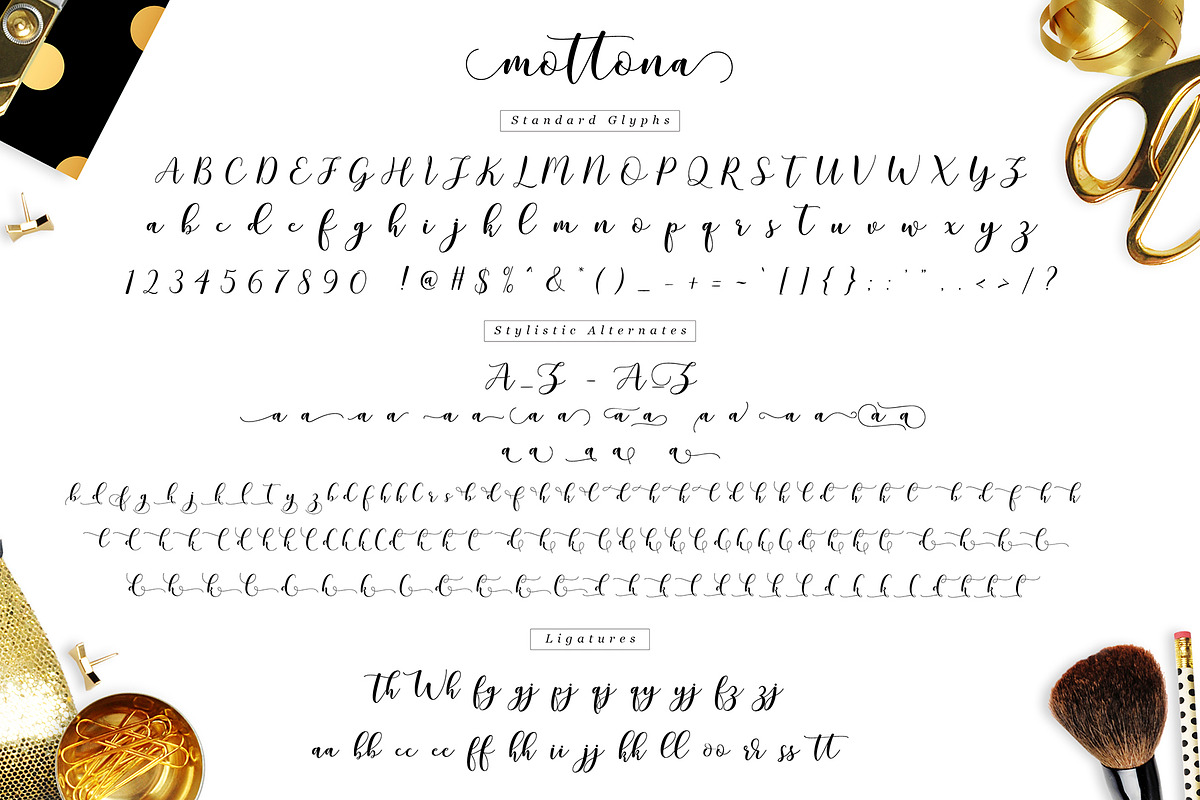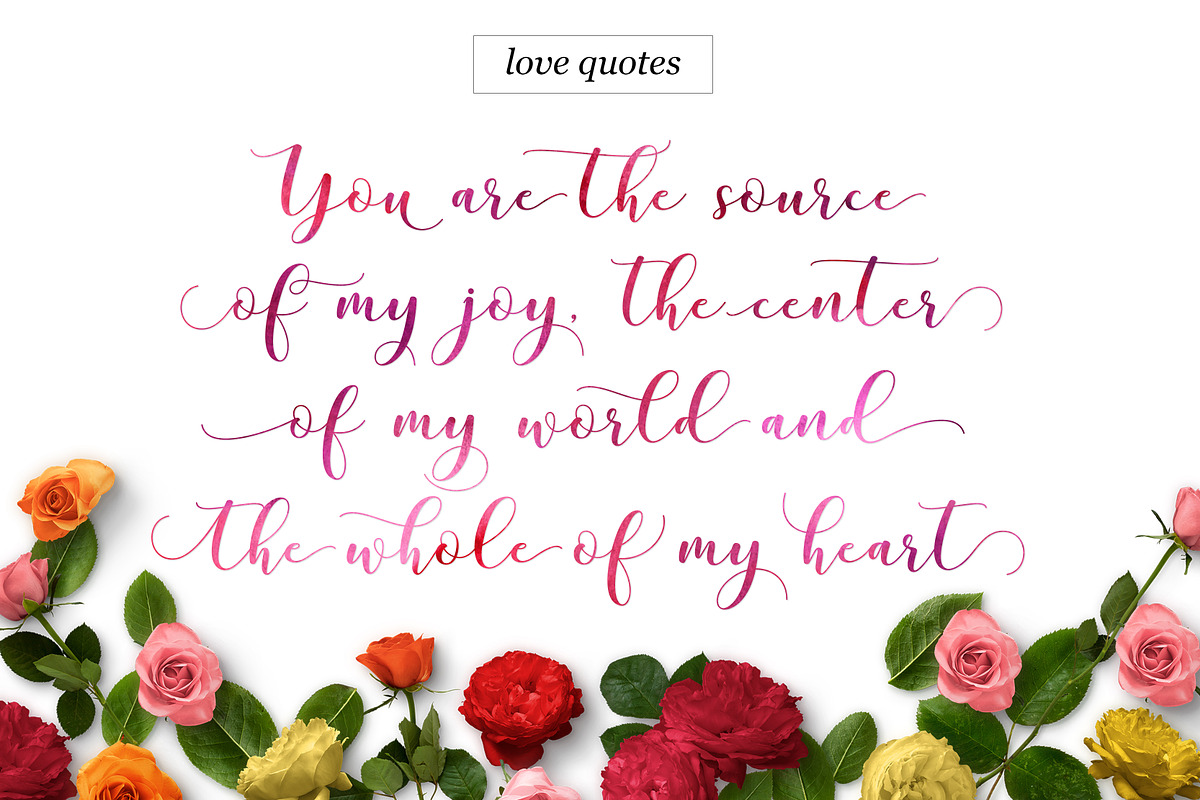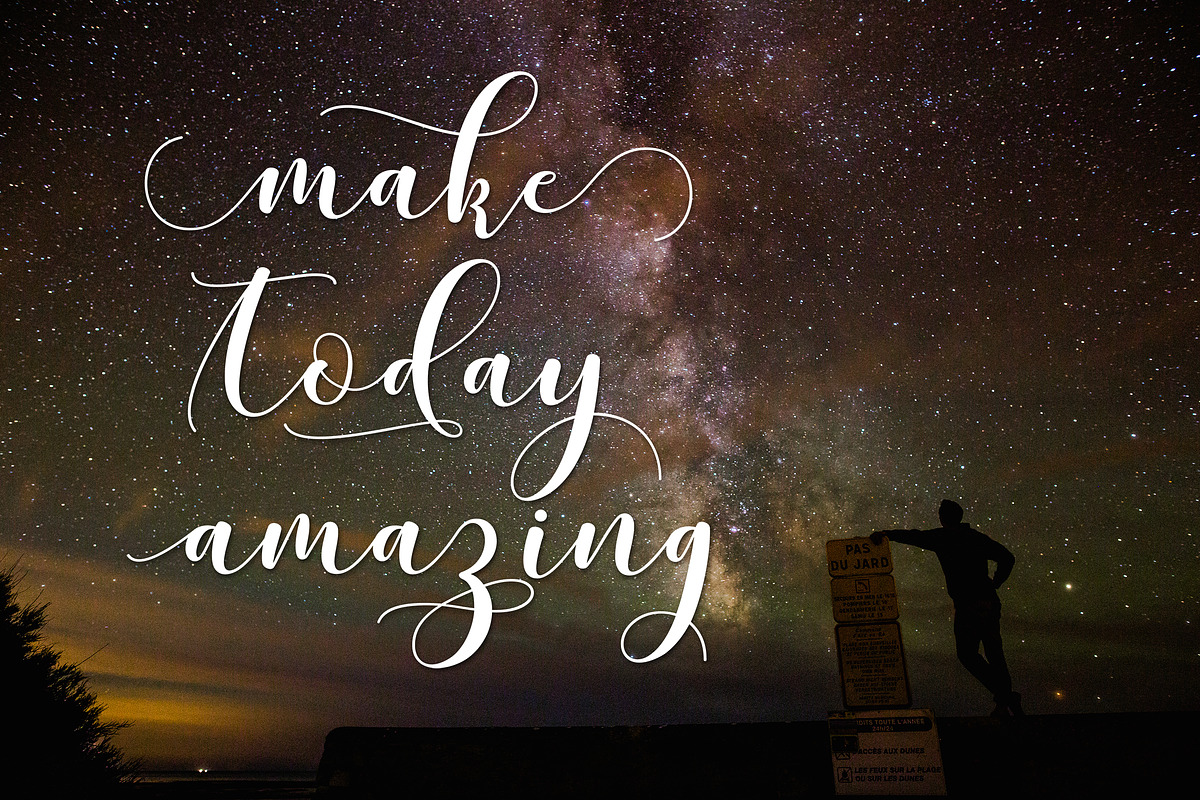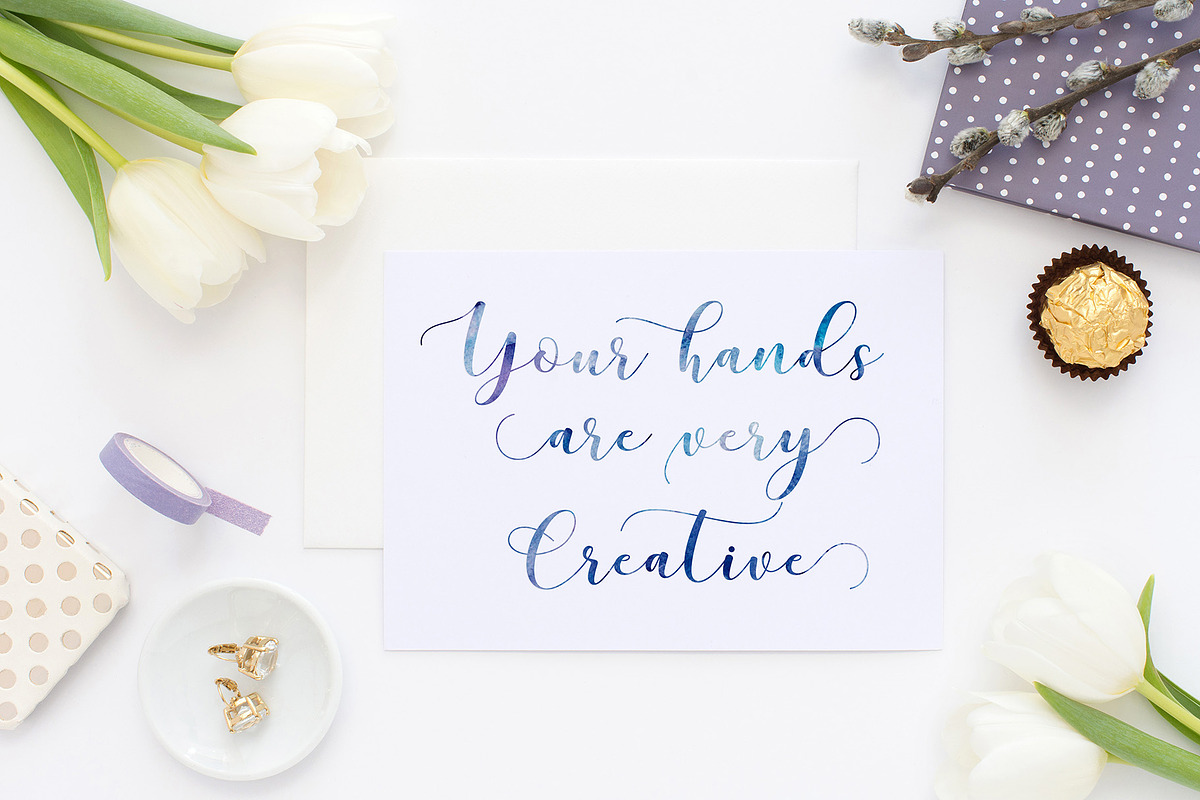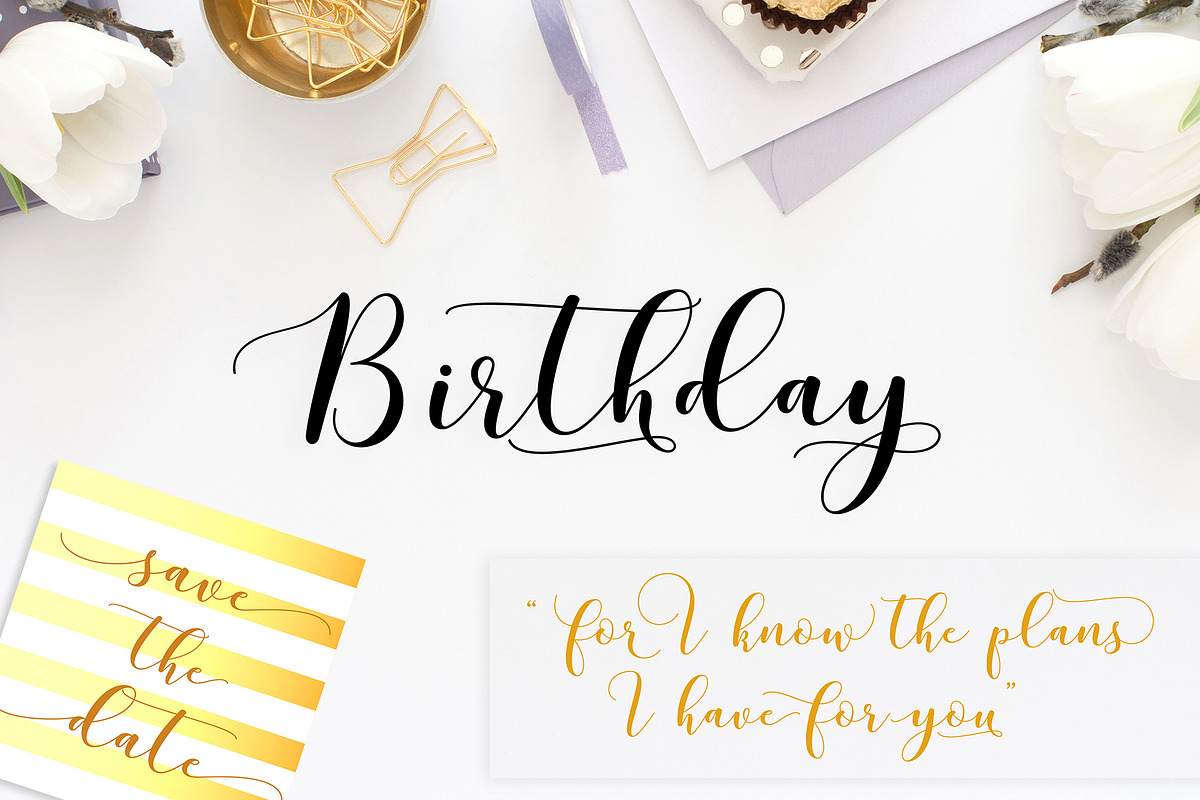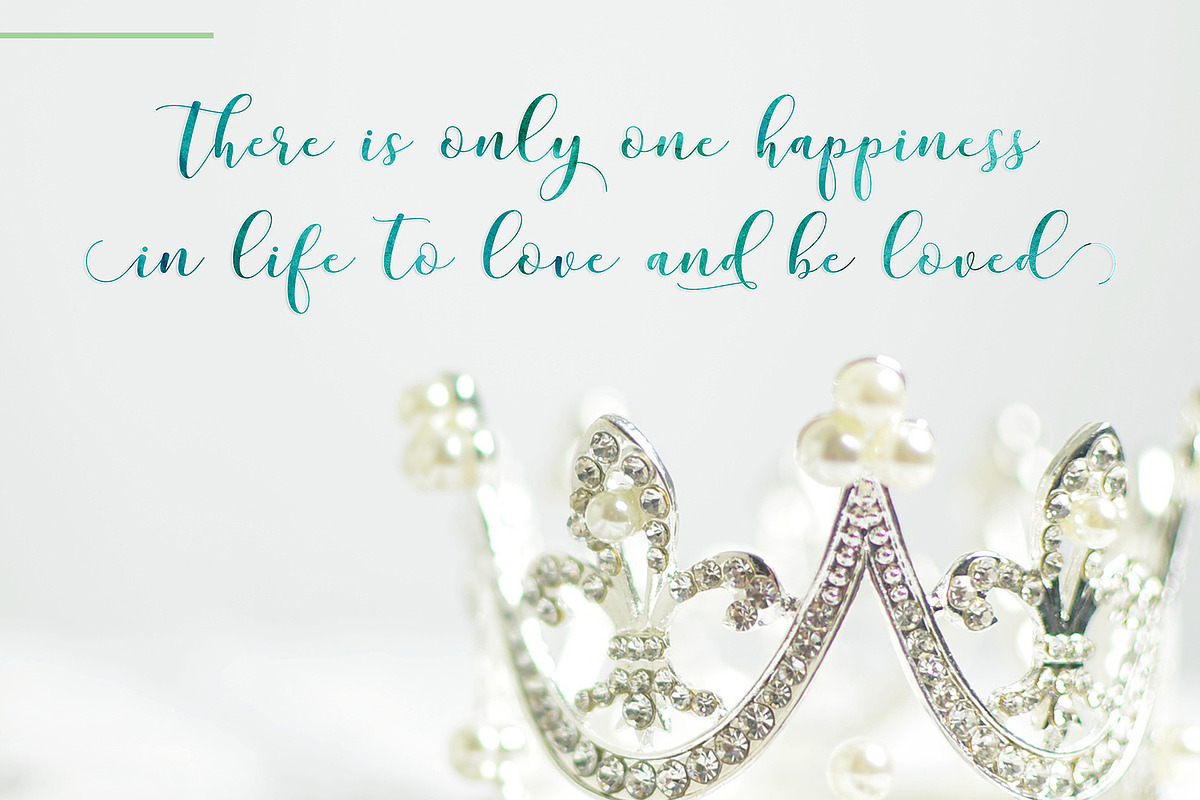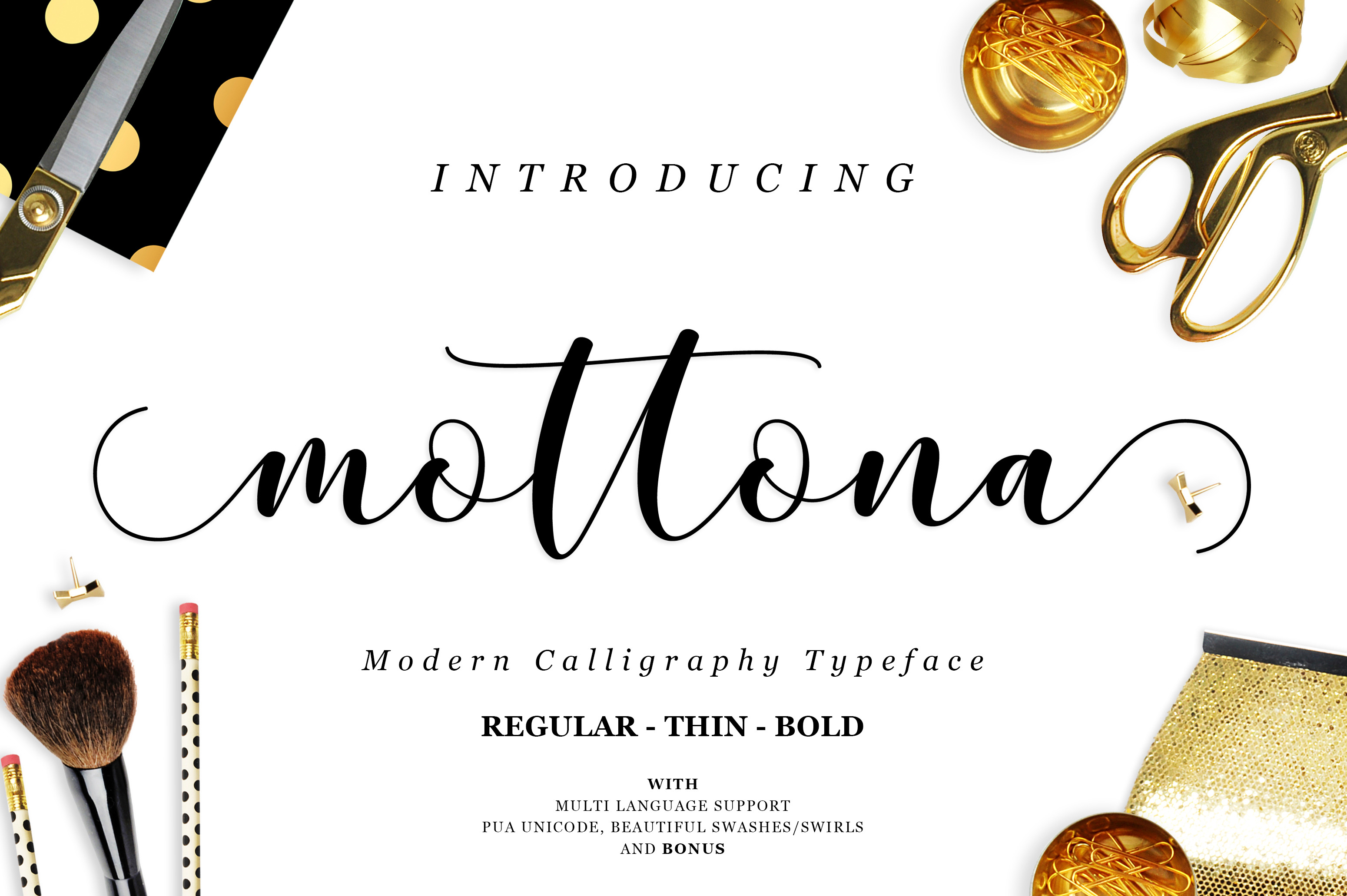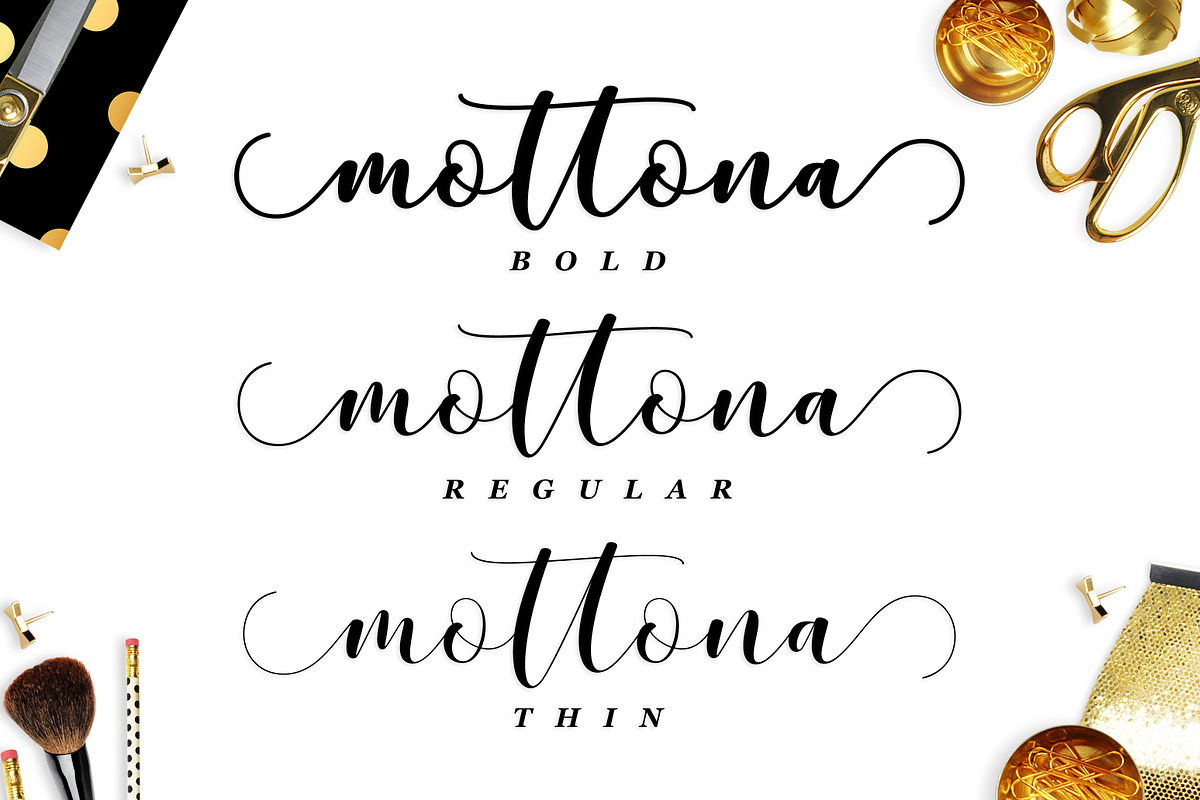
Mottona Script Font
Introducing Mottona Script Font
Mottona Script is modern script font, every single letters has been carefully crafted to make your text looks beautiful. With modern script style this font will perfect for many different project, example: weddings, invitations, greeting cards, posters, name card, quotes, blog header, branding, logo, fashion, apparel, letter, stationery, etc.
Mottona Script allows you to create custom dynamic text. you can access by turning on; Stylistic Alternates, Stylistic Set, Initial Forms, Terminal Forms as well as ligatures in Photoshop, Adobe Illustrator, Adobe InDesign or through a panel of glyphs such as Adobe Illustrator, Photoshop CC, Let's swirl from the reguler character into character alternative to get the text with the layout of your dreams.
Mottona Script features 1120 glyphs and has given “Private Use Areas” PUA Encoded (specially coded fonts), with tons of alternate characters. The pack can be accessed in full by any crafter or designer, without the requirement for extra design software, Compatible With Silhouette Studio & Cricut Design Space.